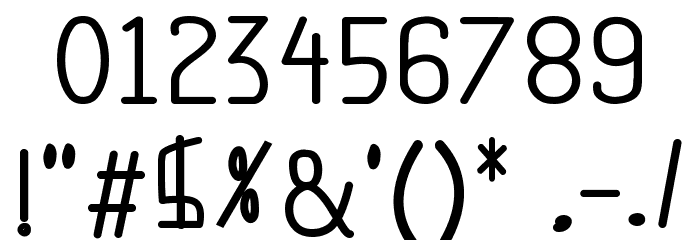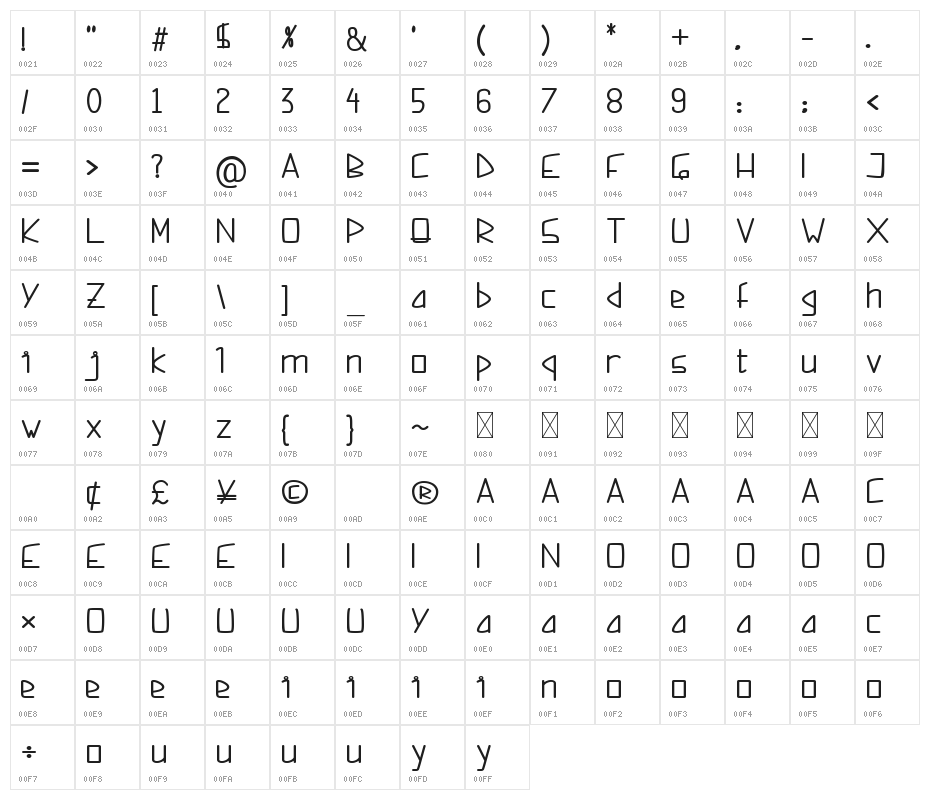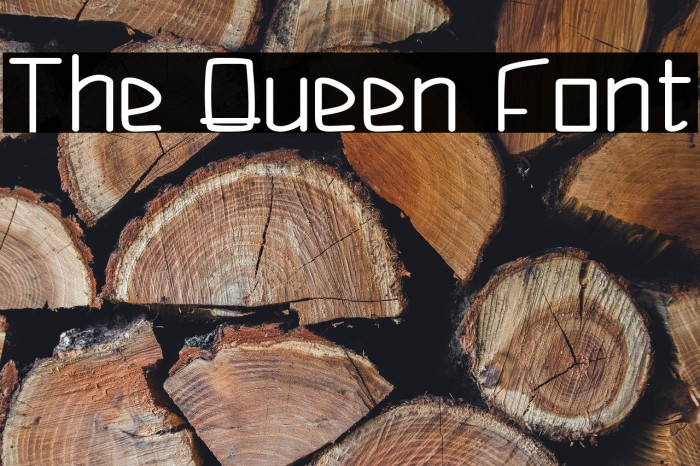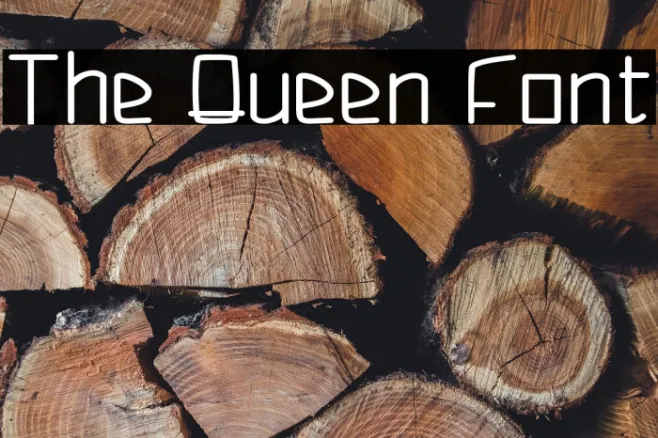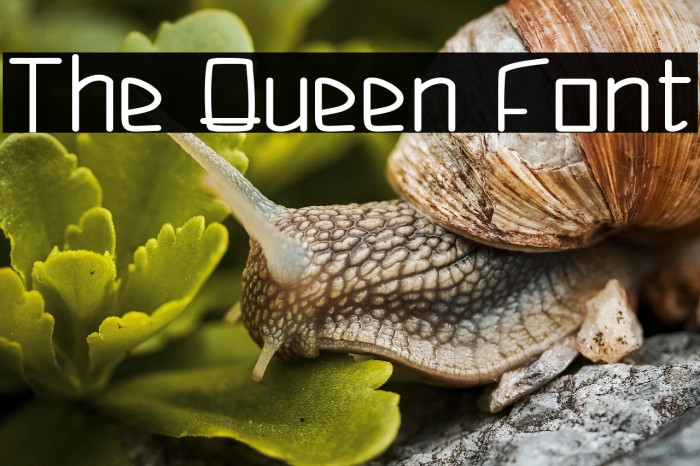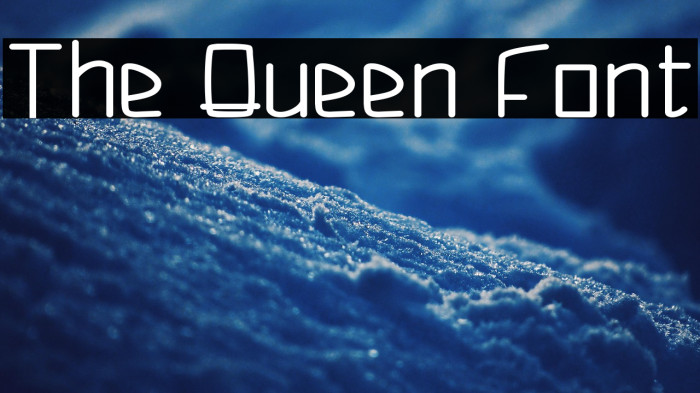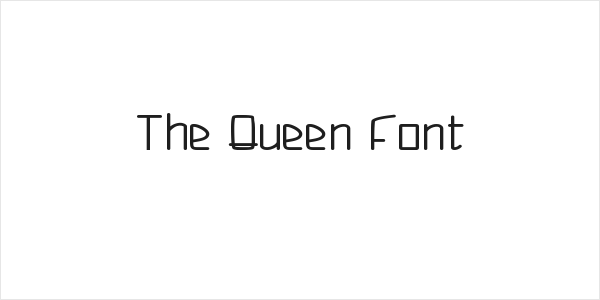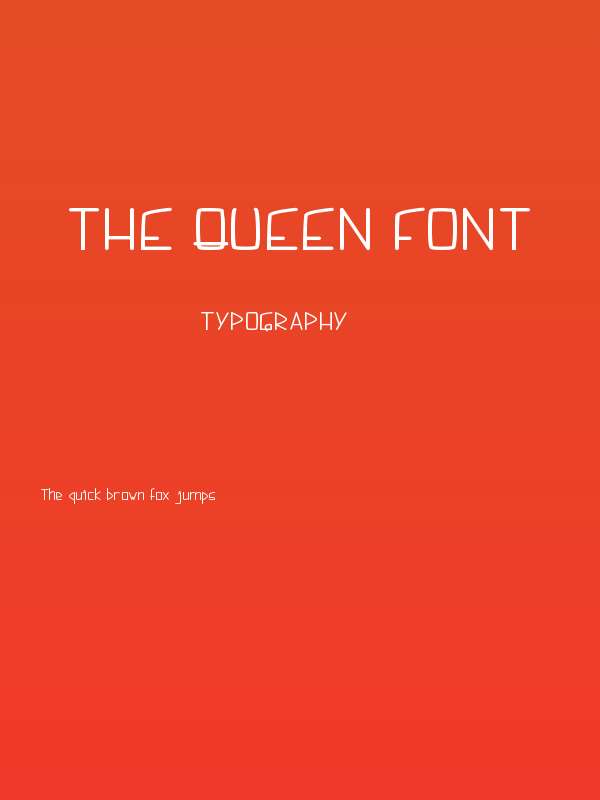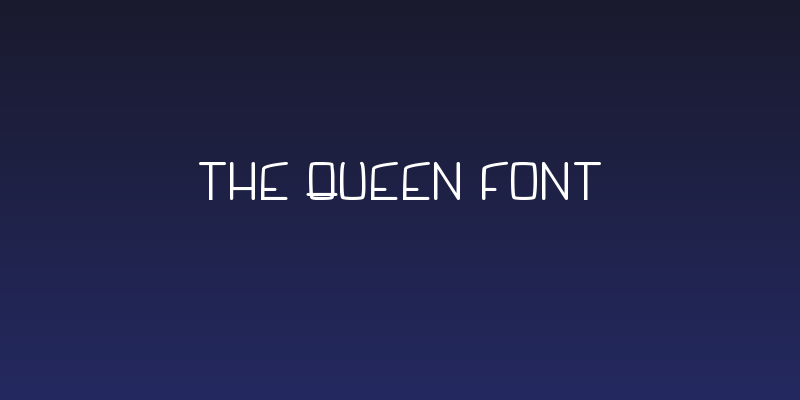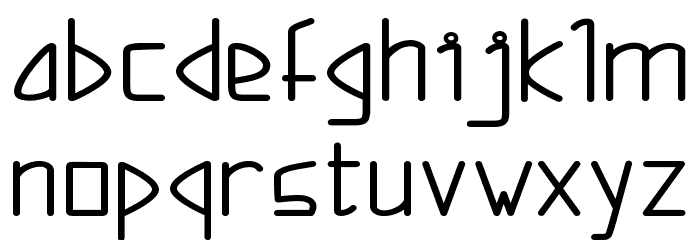
The Queen Font Font
The Queen Font Description
This font features a playful and modern design with a handwritten feel. The characters are slightly elongated with rounded edges, giving it a friendly and approachable appearance. The uppercase letters maintain a consistent height, while the lowercase letters have a unique charm with subtle variations in stroke width. Numbers are clear and easy to read, matching the overall style of the alphabet. Special characters are well-integrated, maintaining the font's cohesive look. The font's design is versatile, suitable for both digital and print media.
Proposed ProjectsIdeal for children's books, casual branding, social media graphics, and greeting cards.